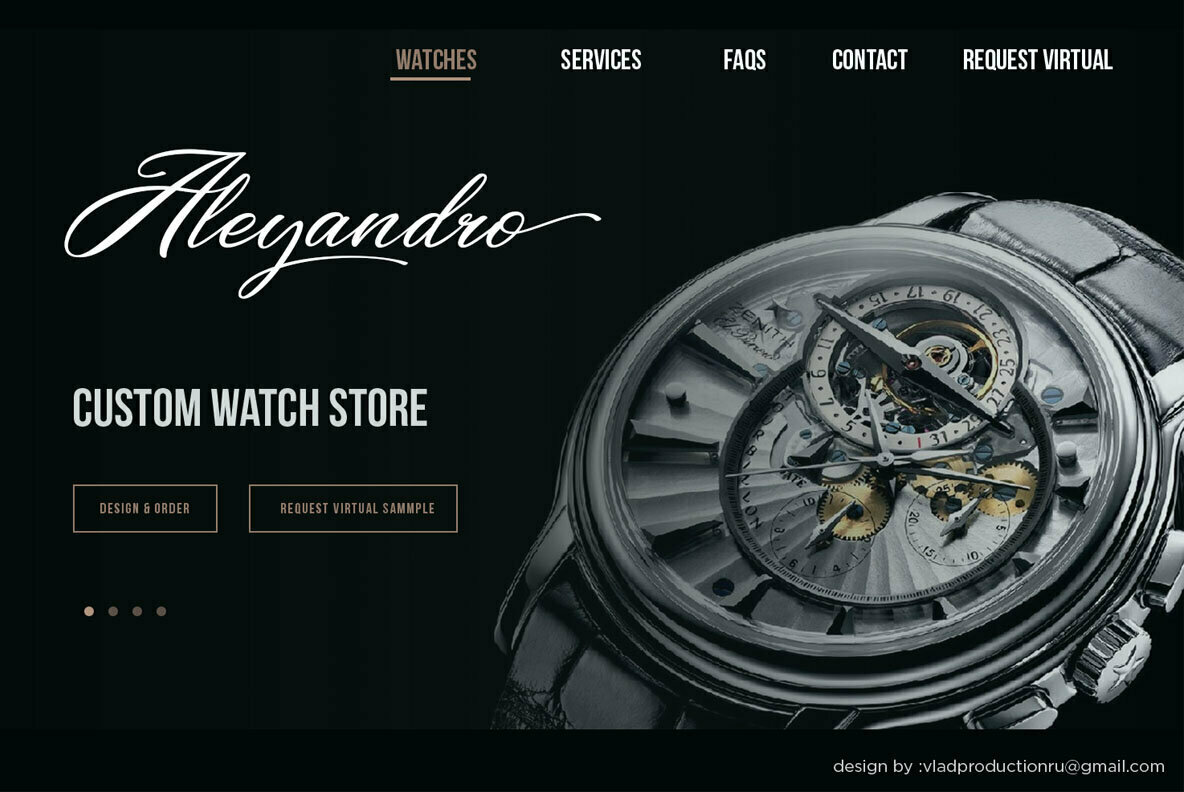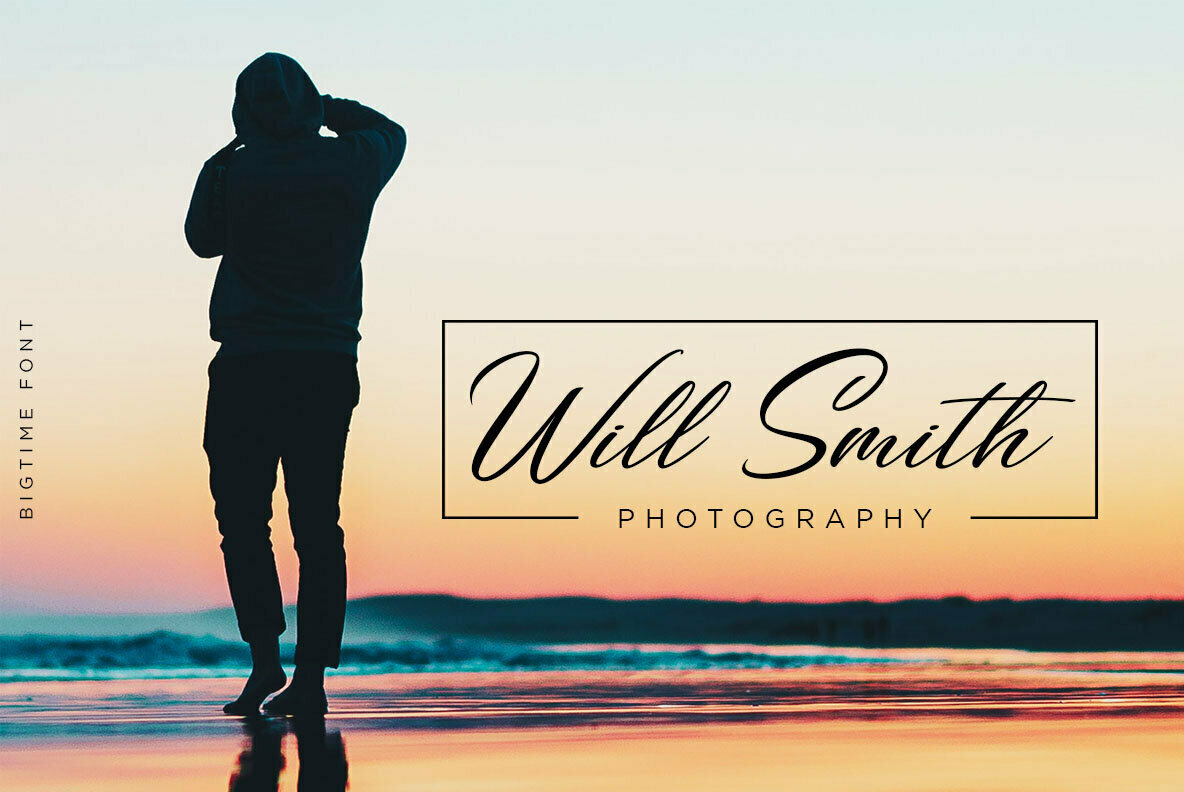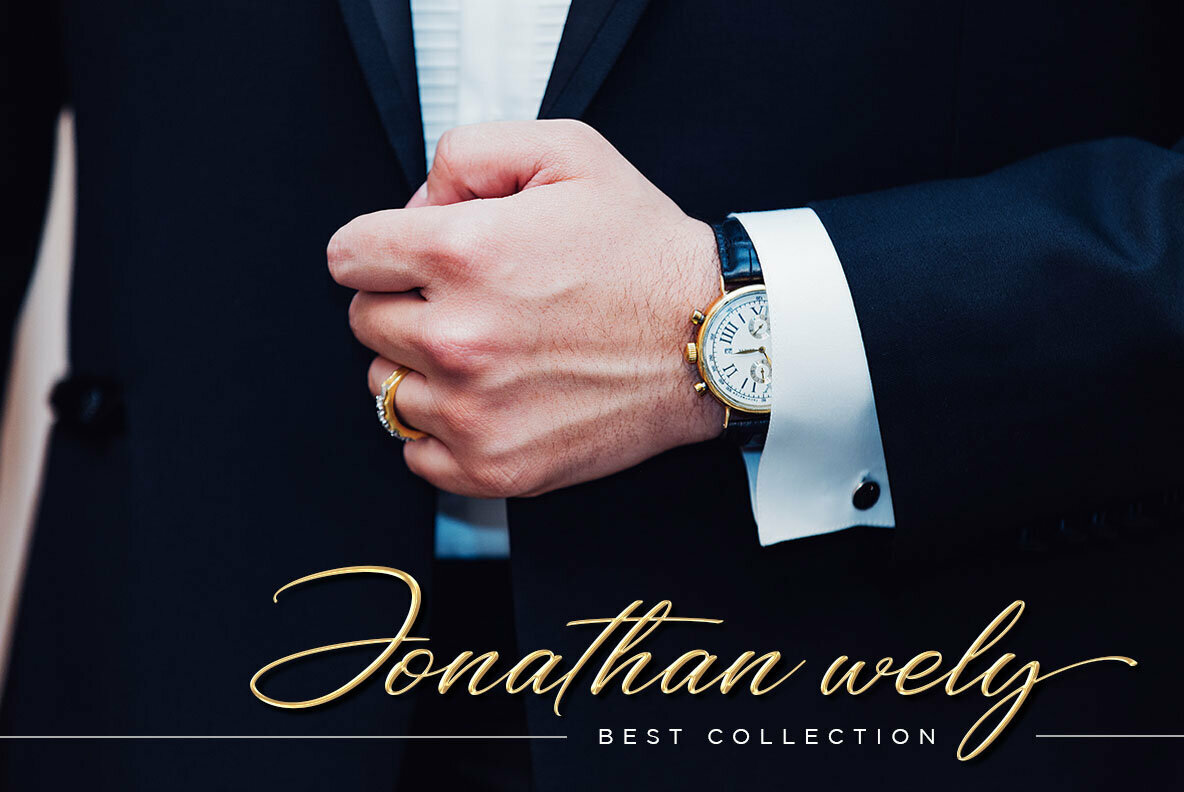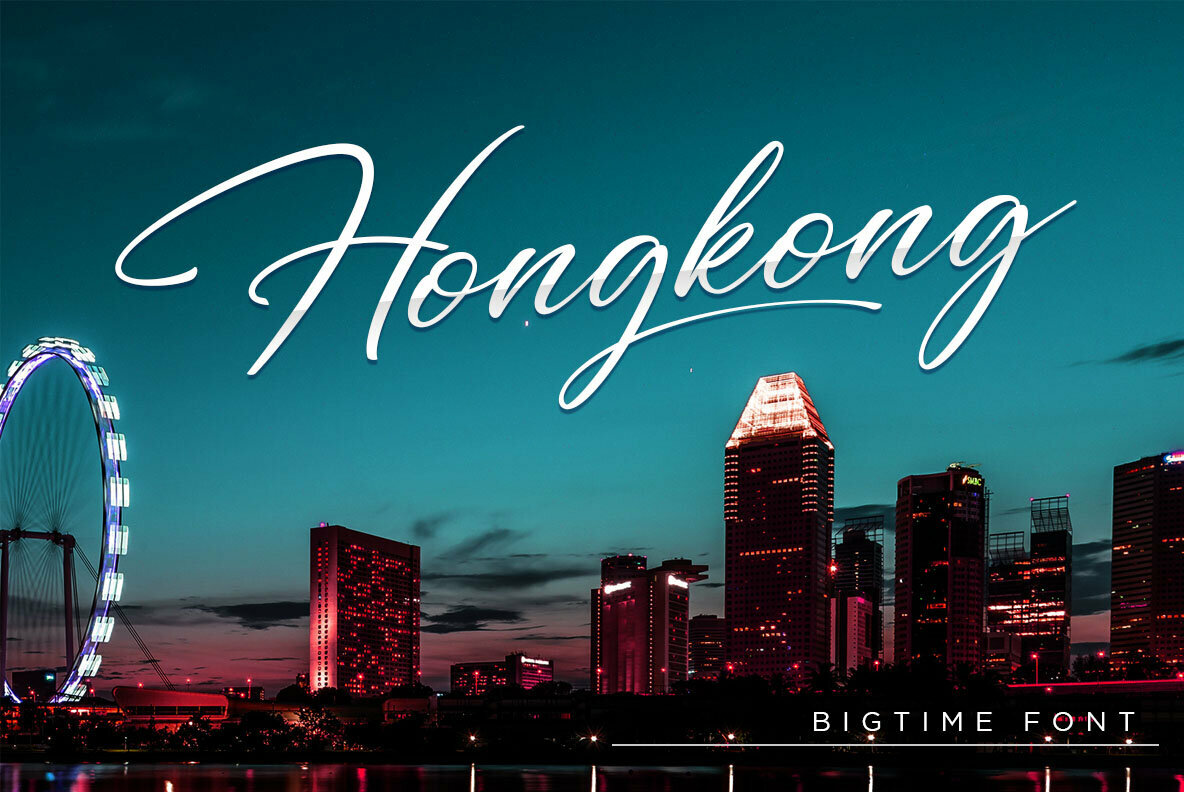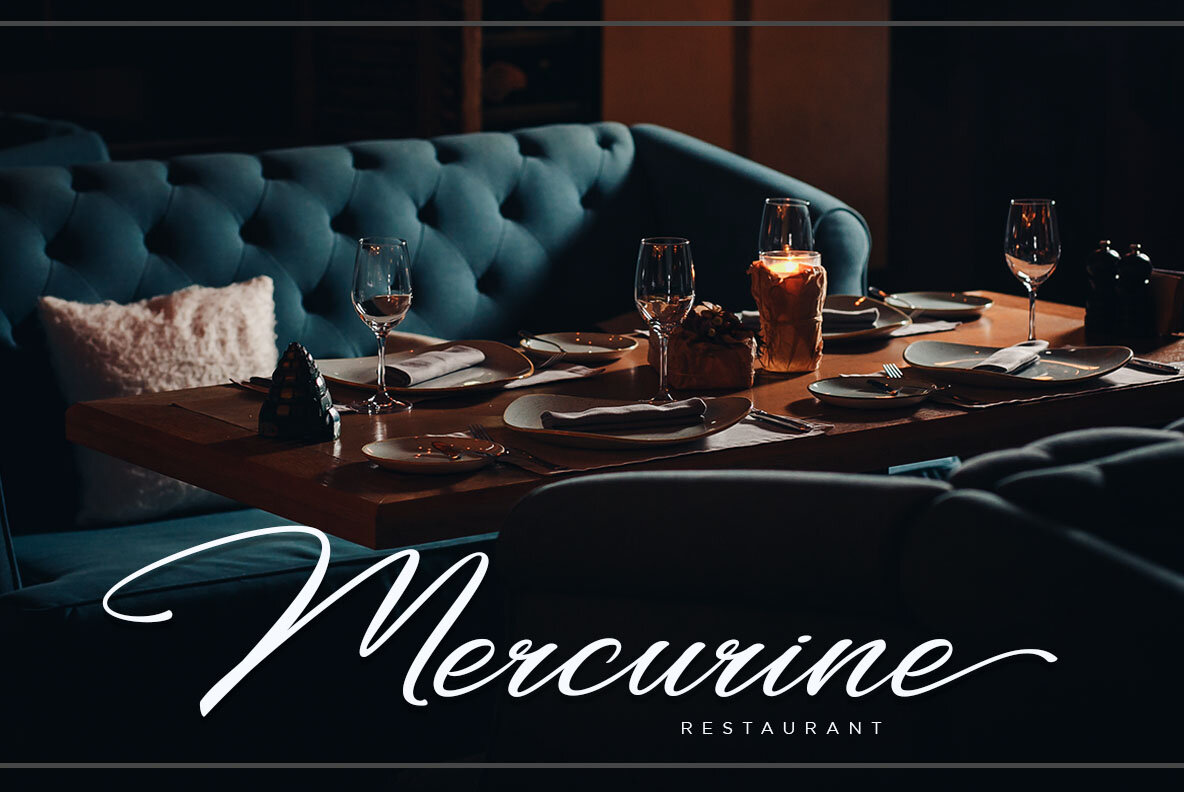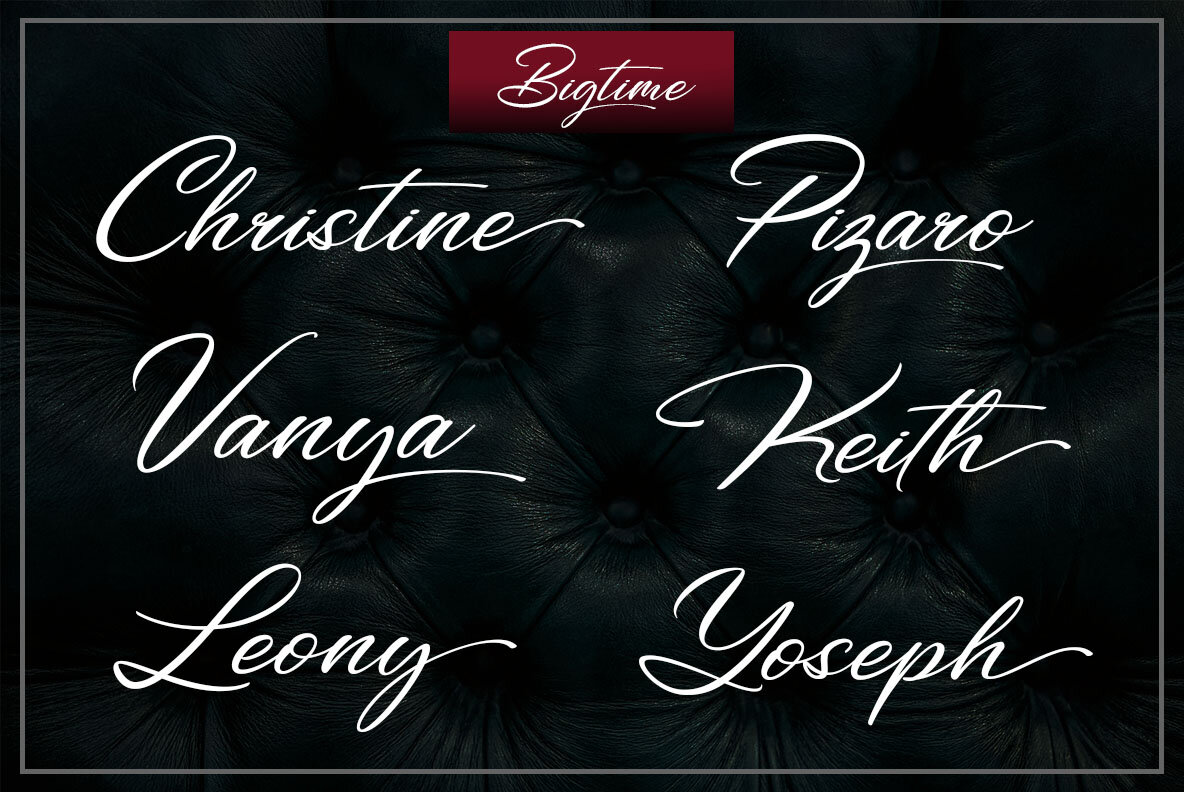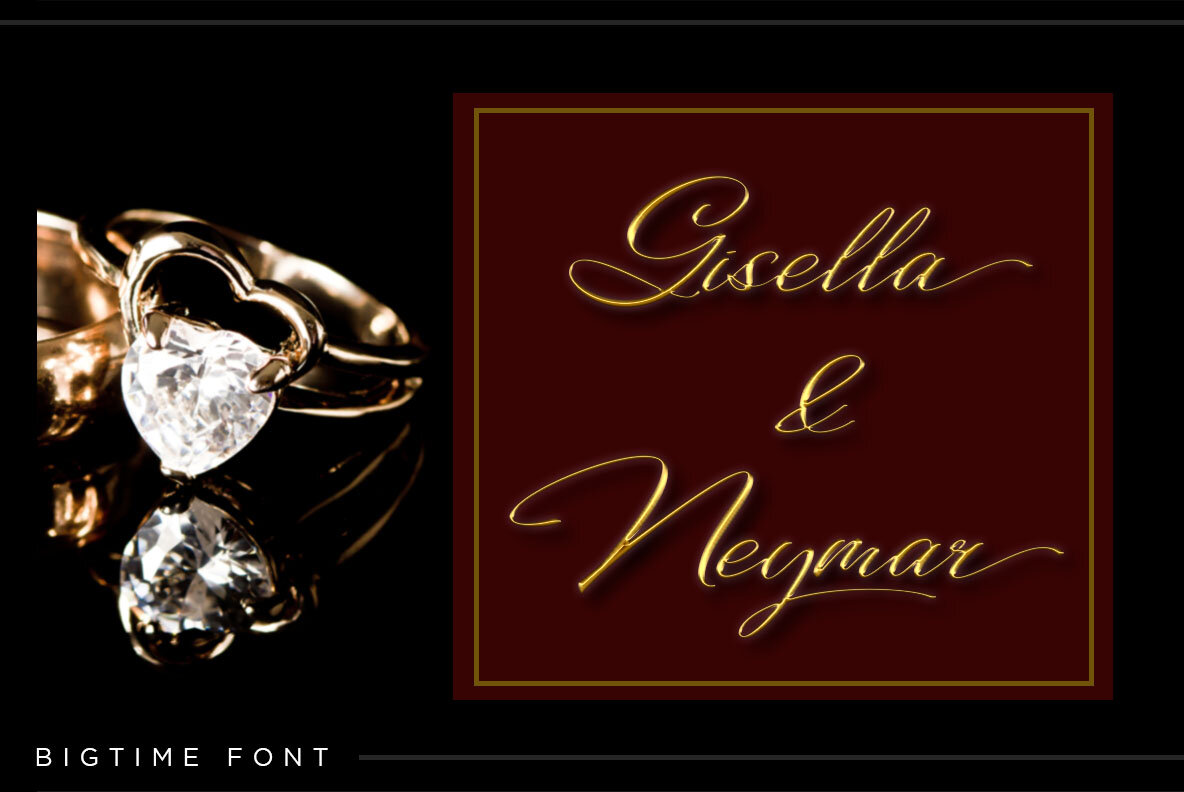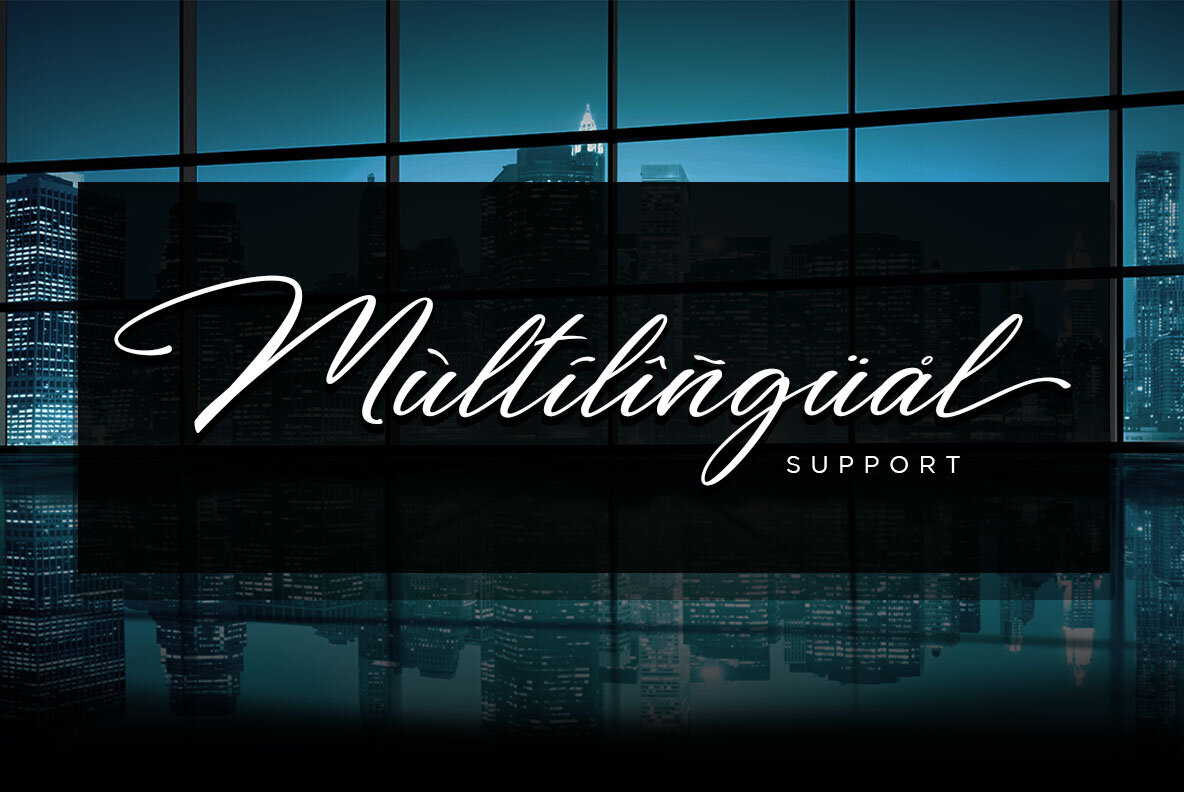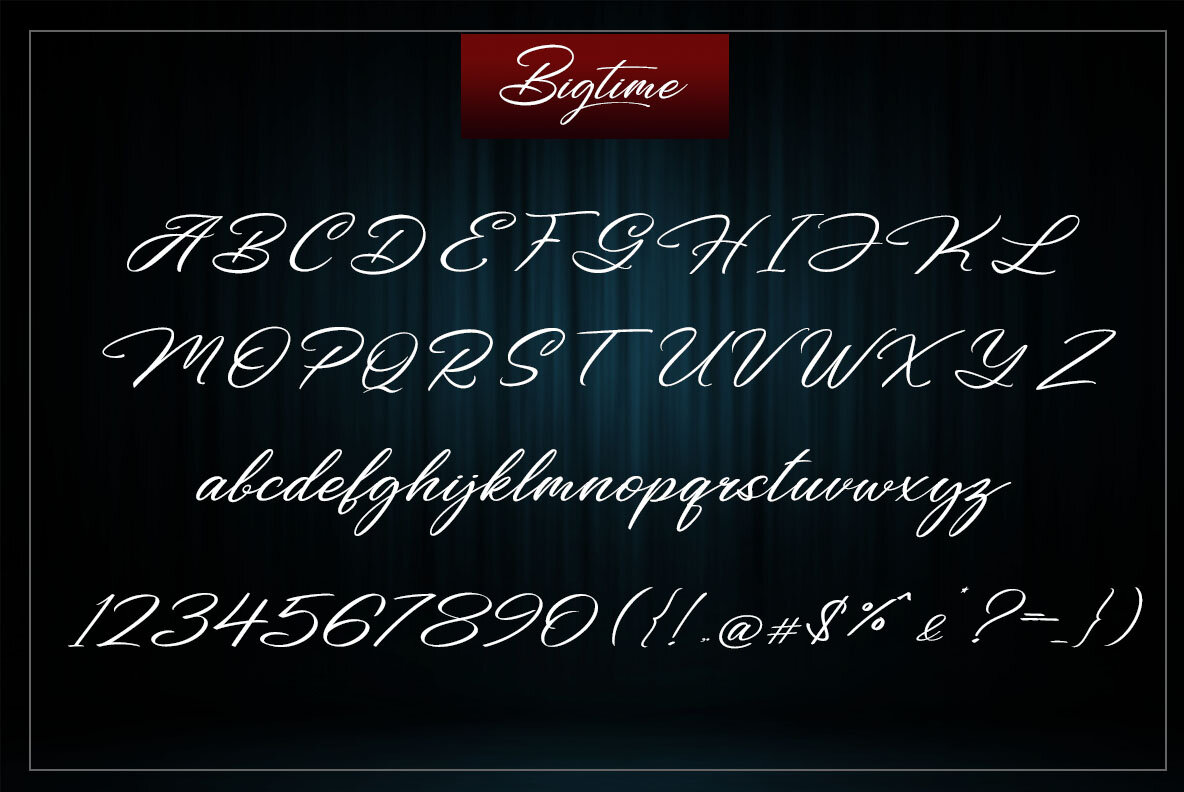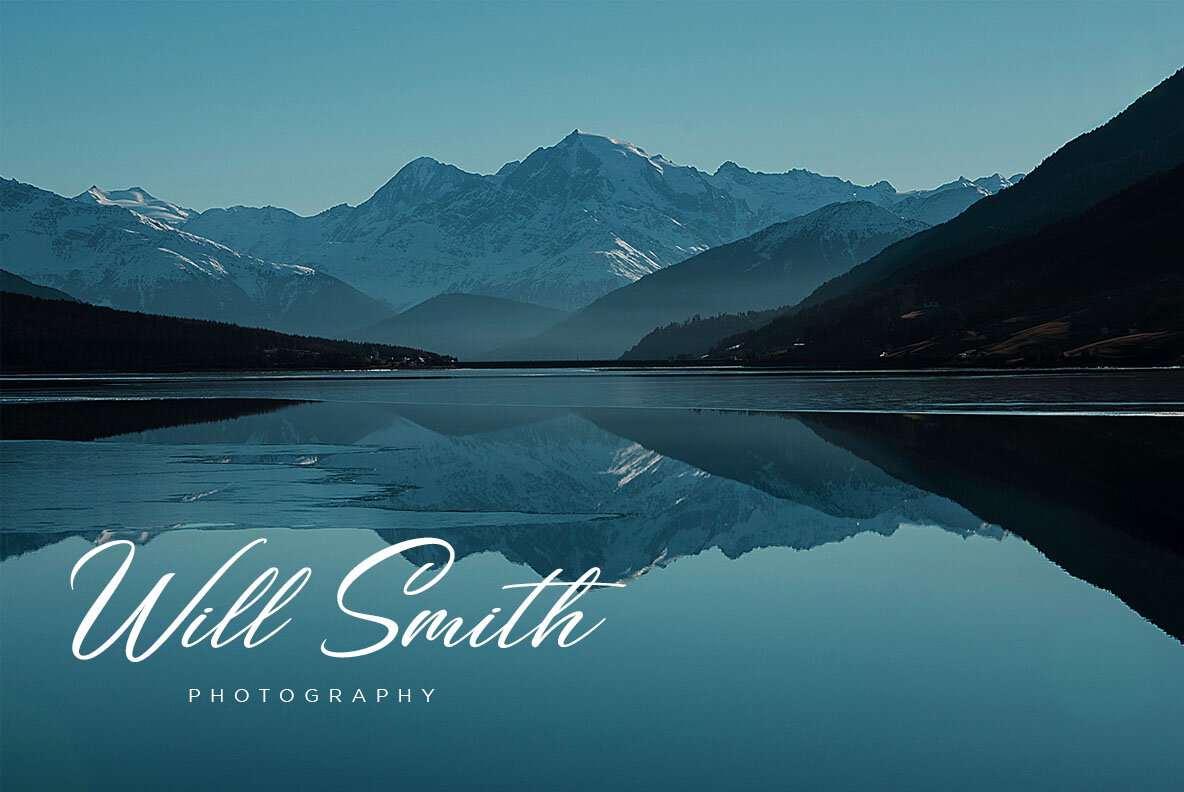
Bigtime Font
Bigtime
Hello! Are you looking for a bold signature? If so, Bigtime Script is the best choice. It presents with a natural, modern, and luxury style.
Bold identity will give more value for your work, so you will need this for your branding.
- Swash Glyph (a-z)
- Alternate Glyph (g, j, y, z, r, t,)
- Numerals and Punctuation